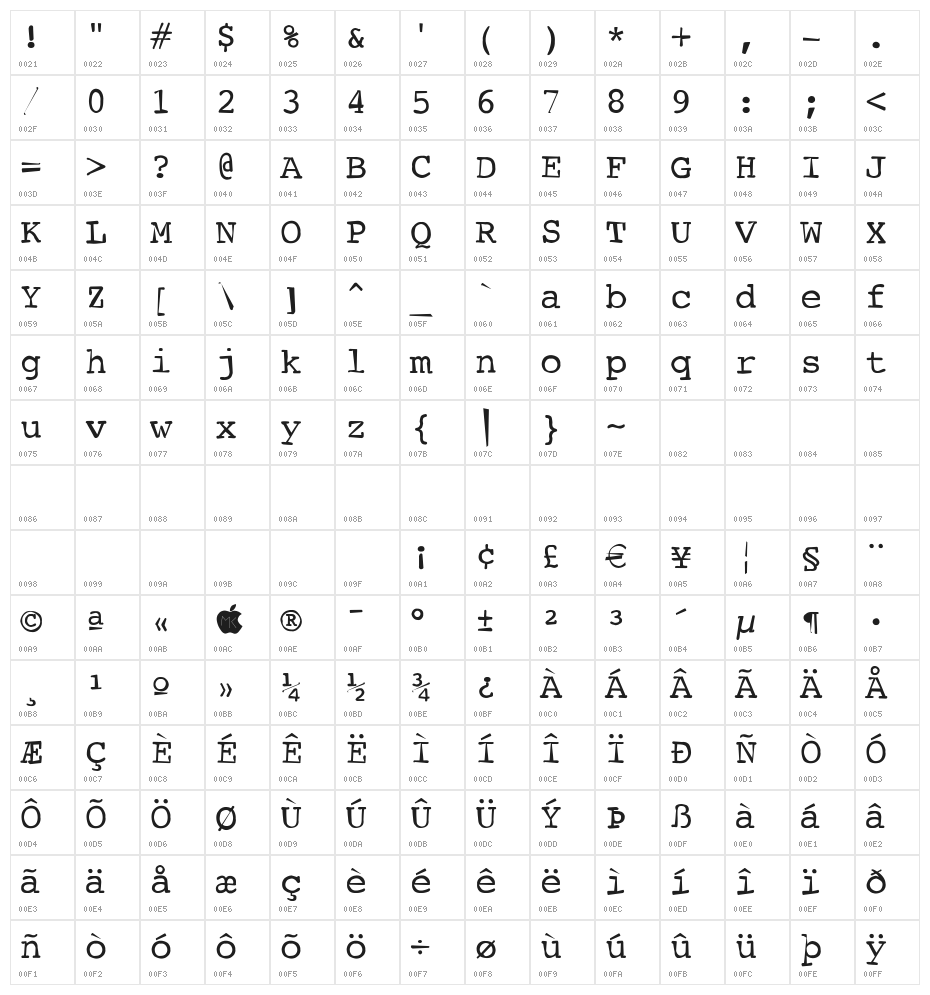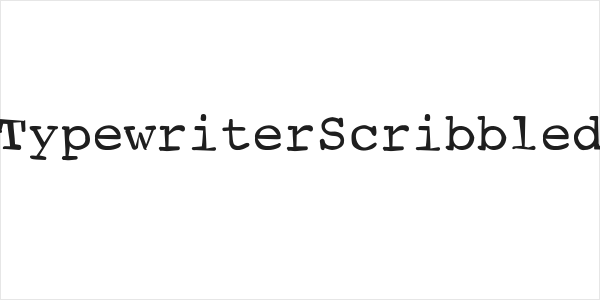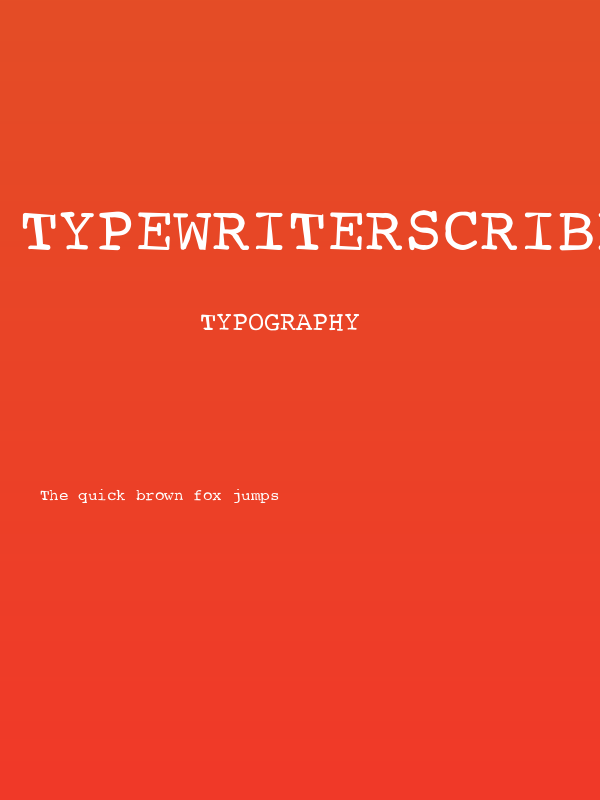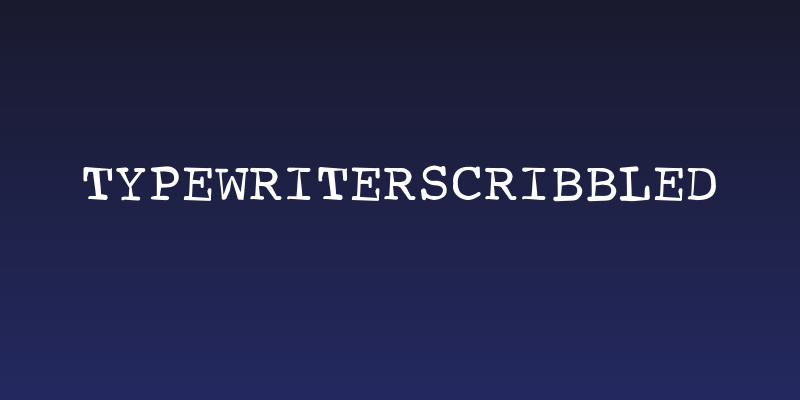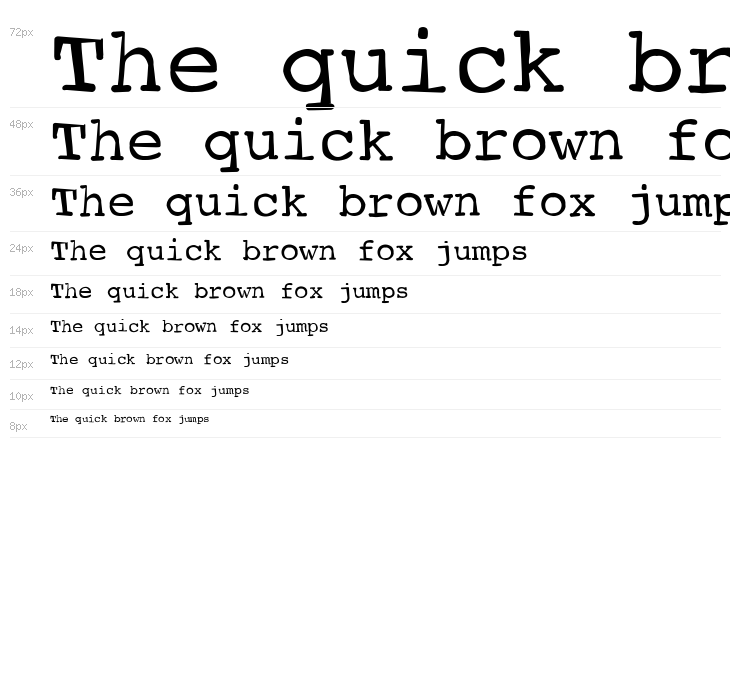
TypewriterScribbled Font
TypewriterScribbled Description
This font exudes a vintage charm reminiscent of old typewriter text, characterized by its monospaced letters and slightly irregular strokes that mimic the imperfections of a typewriter. The uppercase and lowercase letters maintain a consistent width, contributing to a uniform appearance. The numerals and special characters follow the same style, ensuring a cohesive look across all text. The font's slightly rough edges and uneven baselines add to its authentic, retro feel, making it ideal for projects that aim to evoke nostalgia or a handcrafted aesthetic.
Proposed ProjectsIdeal for retro-themed designs, typewriter-style documents, creative writing projects, and vintage branding.